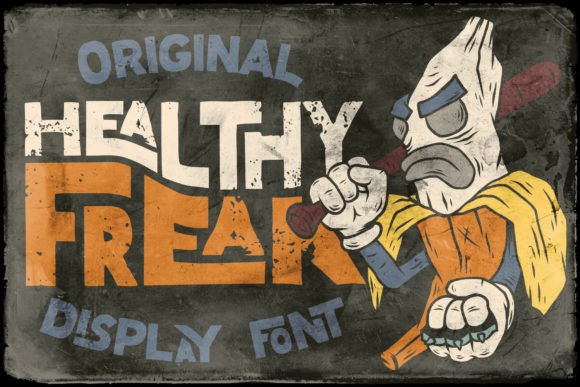
Healthy Freak Font
Healthy Freak is a spectacular and eye-catching display font. Use it to make your ideas even more realistic and create spectacular designs!